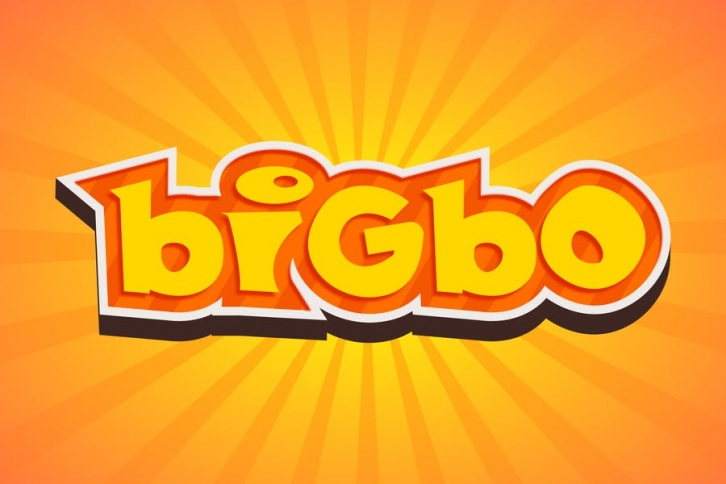
Bigbo Cute Font Download
Bigbo Font is a Unique Display Typeface with Web-fonts. It's a very versatile font that works great in large and small sizes. Bigbo Font would perfect for Kid's Crafts, Funny branding, headlines, Captions. or simply as a stylish text overlay to any background image. Strong capitals and a smooth, open lowercase are effective in a variety of applications. It's shown a clean, minimalist, warmth, quirky, yet still purposed to be versatile and easy to read.